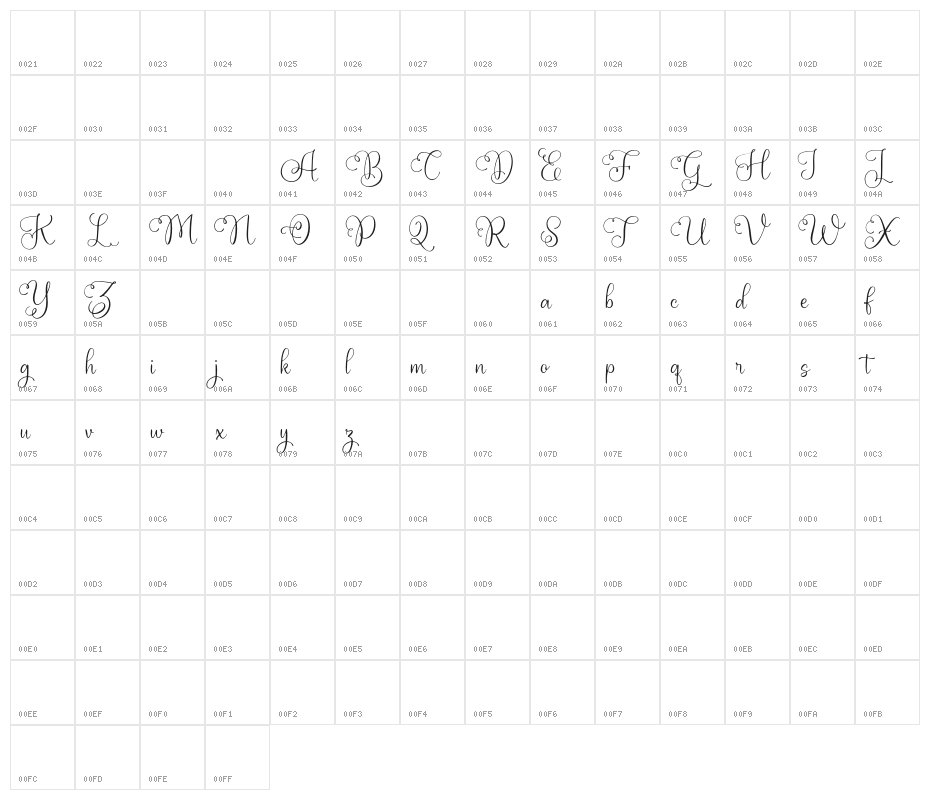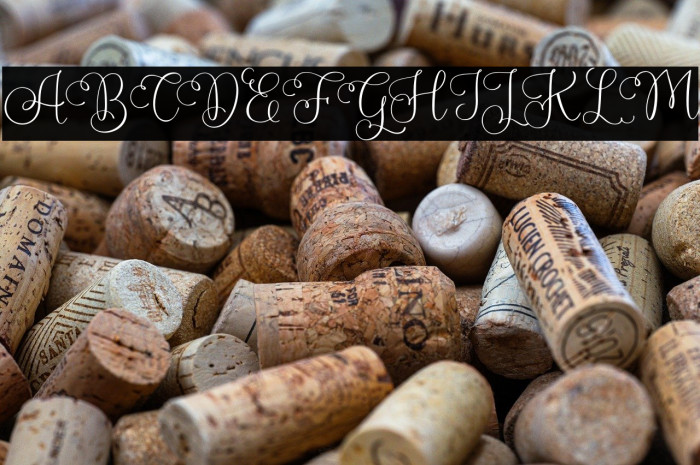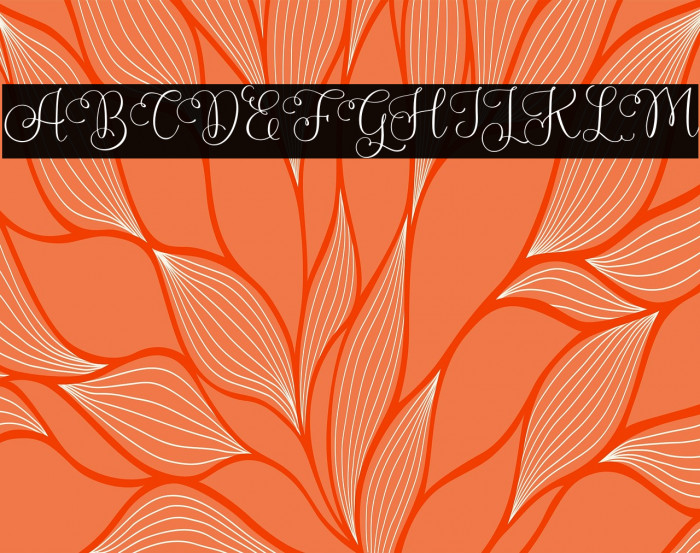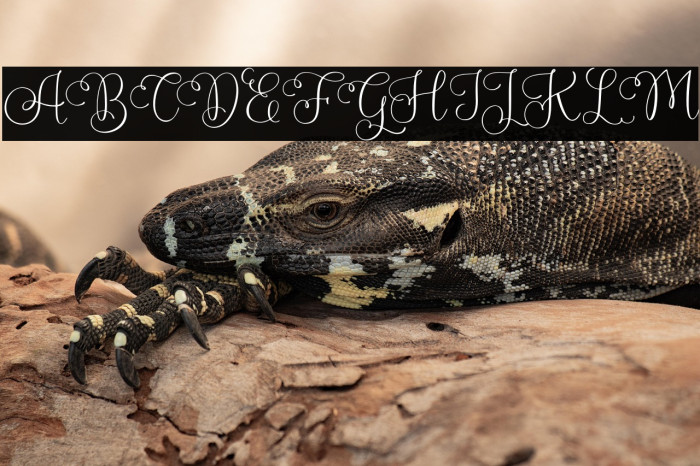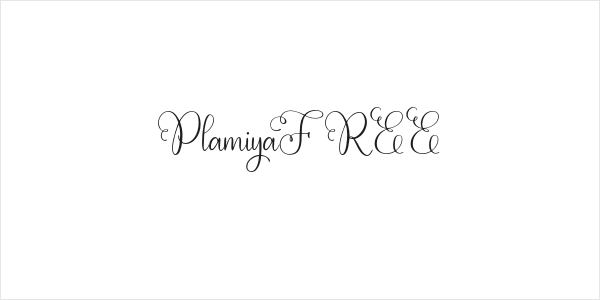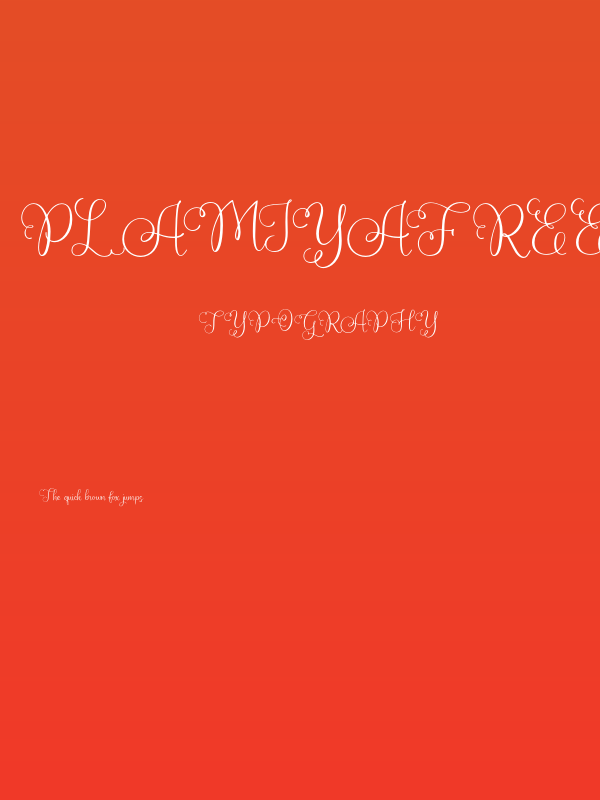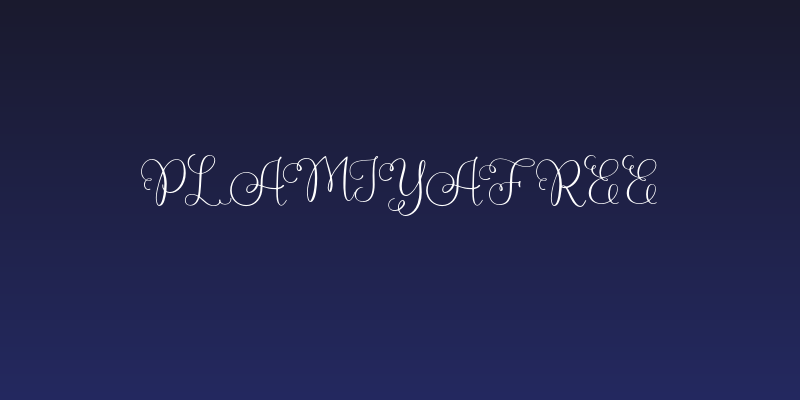
PlamiyaFREE Font
PlamiyaFREE Description
This font features an elegant and flowing script style, characterized by its intricate swirls and loops. The uppercase letters are particularly ornate, with elaborate flourishes that give a sense of sophistication and grace. The lowercase letters maintain a consistent style, with smooth curves and a slightly more restrained use of embellishments. The overall appearance is both decorative and legible, making it suitable for a variety of creative applications. The font's design is reminiscent of traditional calligraphy, yet it maintains a modern touch that enhances its versatility.
| Proposed Projects | Ideal for wedding invitations, greeting cards, branding projects, and any design requiring a touch of elegance and sophistication. |